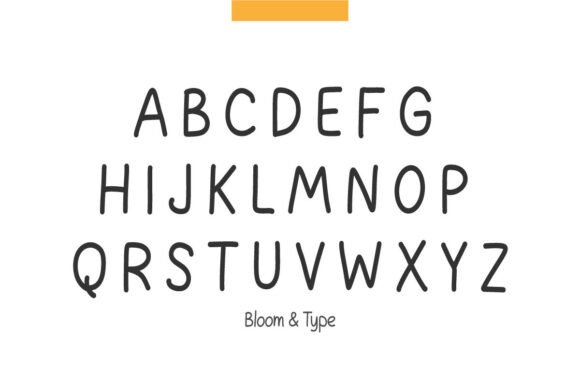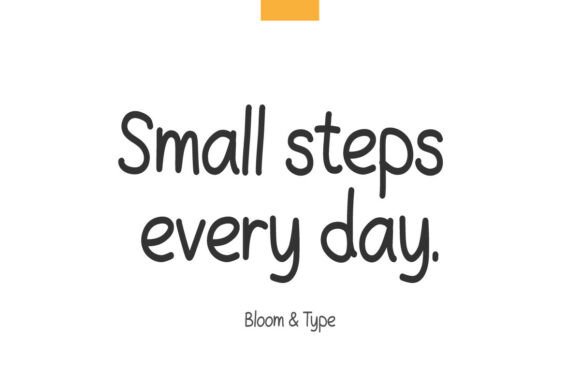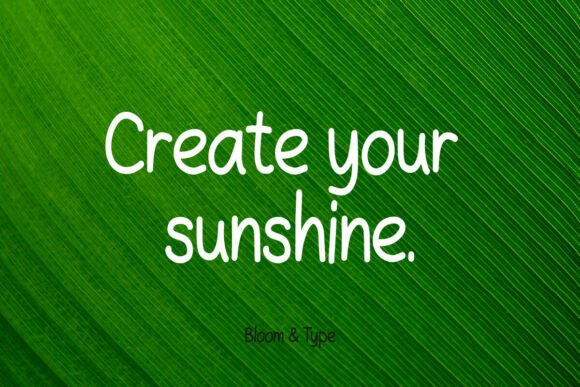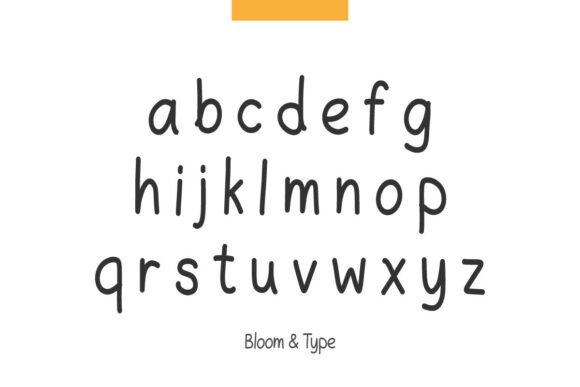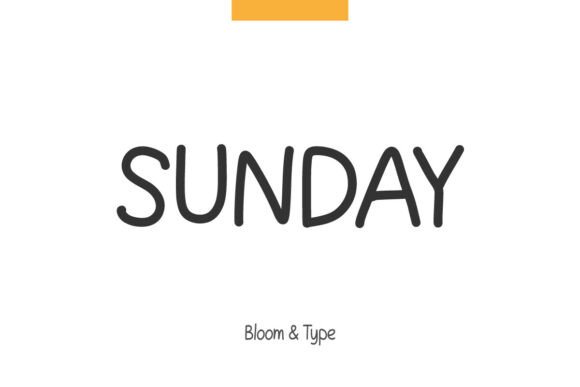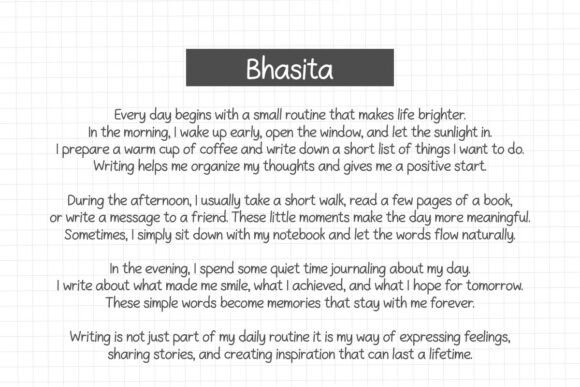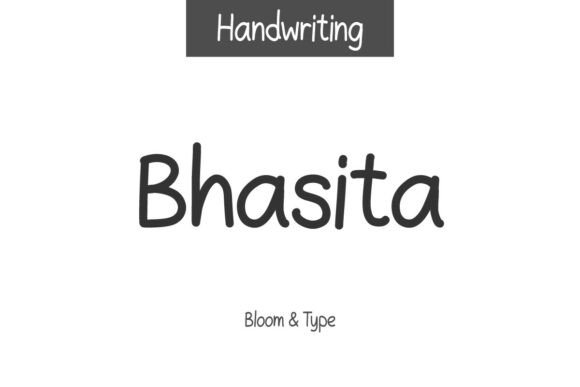
Bhasita Font: Adding a Touch of Personality to Your Creative Projects
In the world of typography, fonts play a crucial role in conveying the tone and personality of a brand or creative project. Among the numerous fonts available, Bhasita stands out as a playful and modern handwritten font that can bring joy and personality to your designs. In this article, we’ll explore the features and benefits of Bhasita, and how it can elevate your creative projects.
What is Bhasita Font?
Bhasita is a carefully crafted handwritten font that combines the natural charm of casual handwriting with a professional and legible look. Its rounded shapes, soft curves, and clean structure make it a perfect choice for designers and crafters looking for a font that exudes warmth and friendliness. Bhasita’s unique character makes it an excellent addition to various creative projects, from motivational quotes and journals to branding, packaging, and social media posts.
Key Features of Bhasita Font
- Playful and Modern Design: Bhasita boasts a playful and modern design that sets it apart from traditional fonts. Its unique character is perfect for creative projects that require a personal touch.
- Rounded Shapes and Soft Curves: The font’s rounded shapes and soft curves give it a friendly and approachable feel, making it ideal for designs that require a warm and inviting tone.
- Clean Structure: Bhasita’s clean structure ensures that the font remains legible, even at smaller sizes, making it perfect for use in a variety of applications.
- Professional and Legible: Despite its playful nature, Bhasita maintains a professional and legible look, making it suitable for use in both personal and commercial projects.
Use Cases for Bhasita Font
Bhasita’s versatility makes it an excellent choice for a wide range of creative projects. Here are some use cases where Bhasita can shine:
- Motivational Quotes: Add a personal touch to your motivational quotes with Bhasita’s friendly and cheerful tone.
- Journals and Notebooks: Use Bhasita to create visually appealing journal covers, headers, and body text that will make your notebooks stand out.
- Branding and Packaging: Bhasita’s unique character makes it an excellent choice for branding and packaging designs that require a personal and heartwarming touch.
- Social Media Posts: Elevate your social media posts with Bhasita’s playful and modern design, making your content more engaging and shareable.
Benefits of Using Bhasita Font
Using Bhasita font in your creative projects offers several benefits, including:
- Unique Character: Bhasita’s unique character sets it apart from traditional fonts, making your designs more memorable and engaging.
- Emotional Connection: The font’s friendly and cheerful tone helps create an emotional connection with your audience, making your designs more relatable and personal.
- Versatility: Bhasita’s versatility makes it suitable for use in a wide range of creative projects, from digital designs to print materials.
- Legibility: The font’s clean structure and legible design ensure that your message is conveyed clearly, even at smaller sizes.
In conclusion, Bhasita font is a playful and modern handwritten font that can bring joy and personality to your creative projects. Its unique character, rounded shapes, and clean structure make it perfect for designers and crafters looking for a font that exudes warmth and friendliness. With its versatility and legibility, Bhasita is an excellent choice for a wide range of creative projects, from motivational quotes and journals to branding, packaging, and social media posts. So why not give Bhasita a try and add a personal touch to your designs?